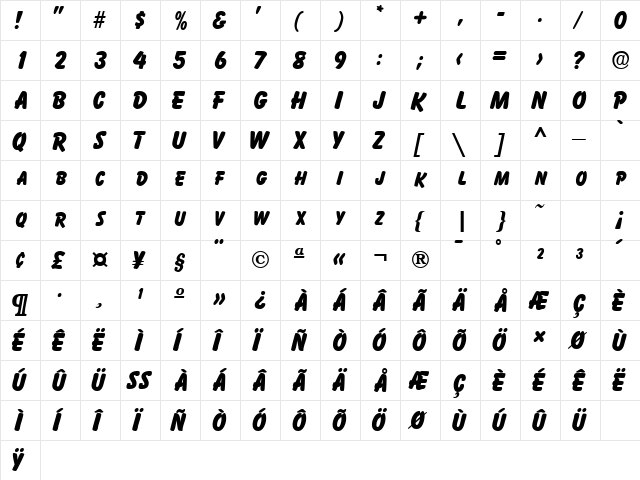
ActivaCapsSSK Bold
Design Context for ActivaCapsSSK Typeface
ActivaCapsSSK is a composed and adaptable typeface that performs quietly and consistently across a wide range of design contexts. Its bold stroke weight gives it real presence on the page.